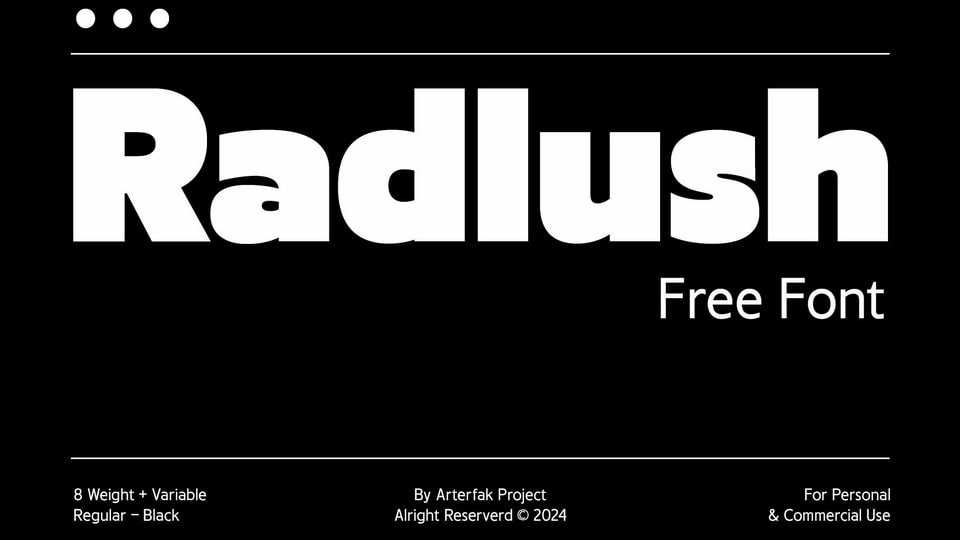
Download Radlush font, a unique display sans-serif typeface. Featuring a distinctive transition, Radlush showcases natural strokes and unique twists, especially in its bolder styles.